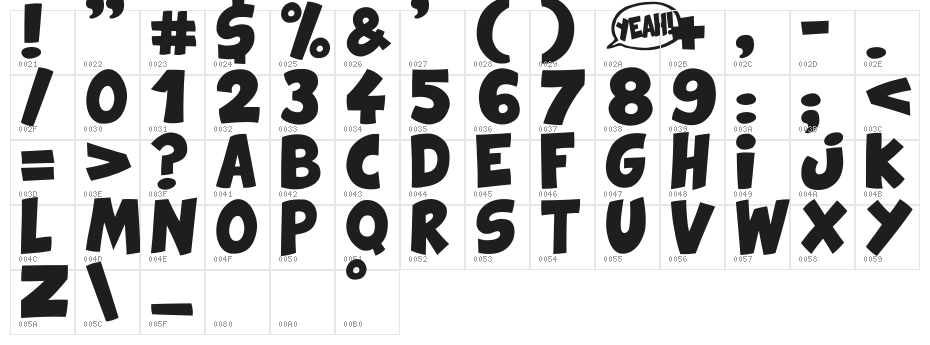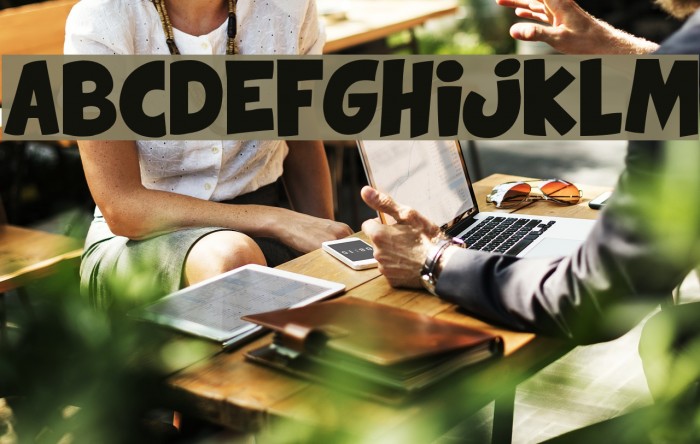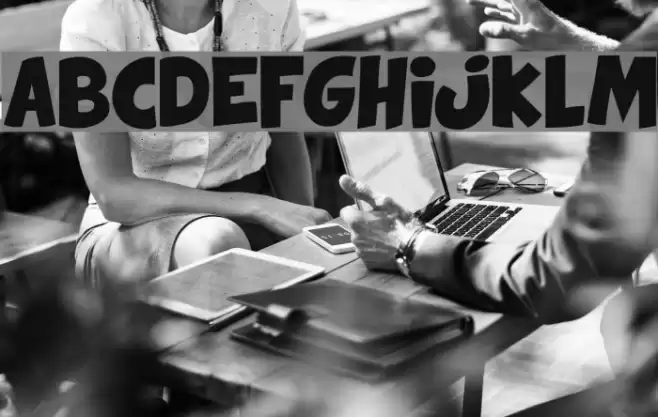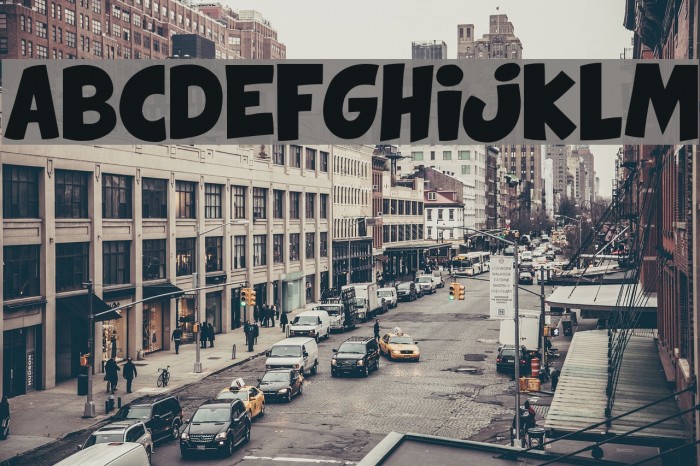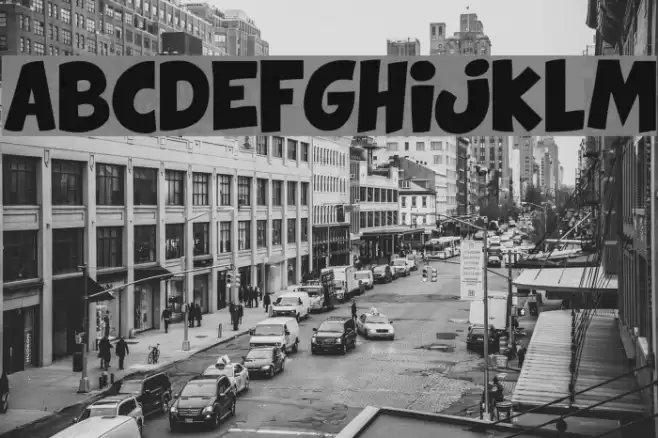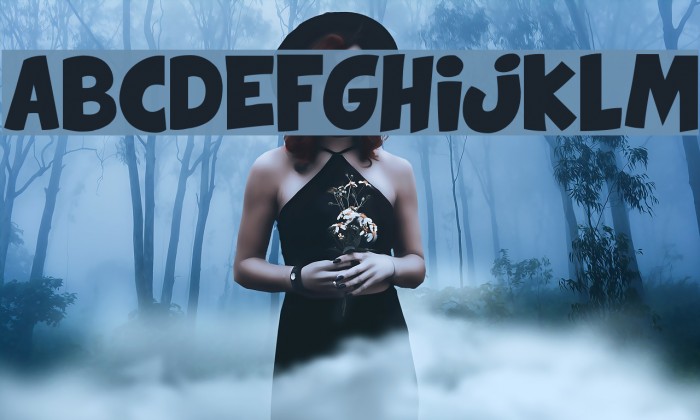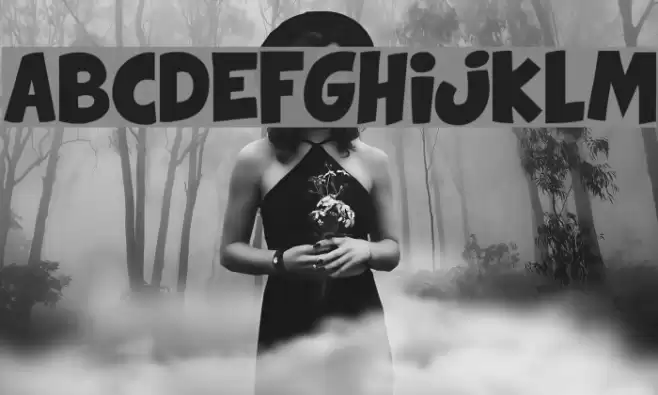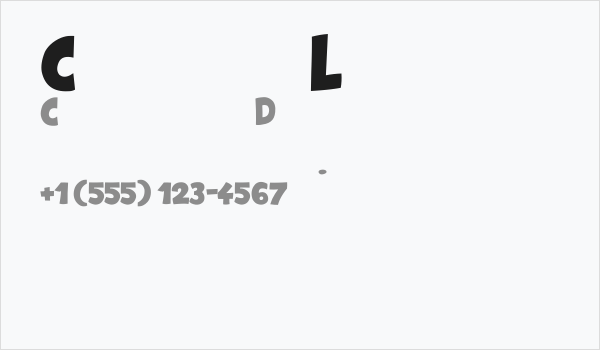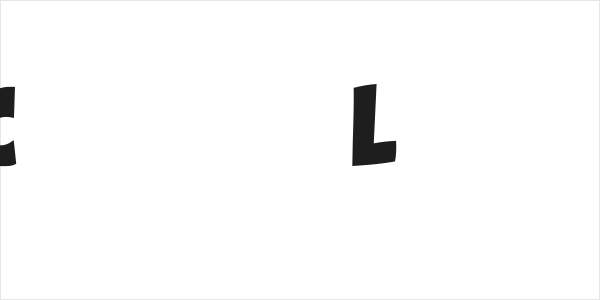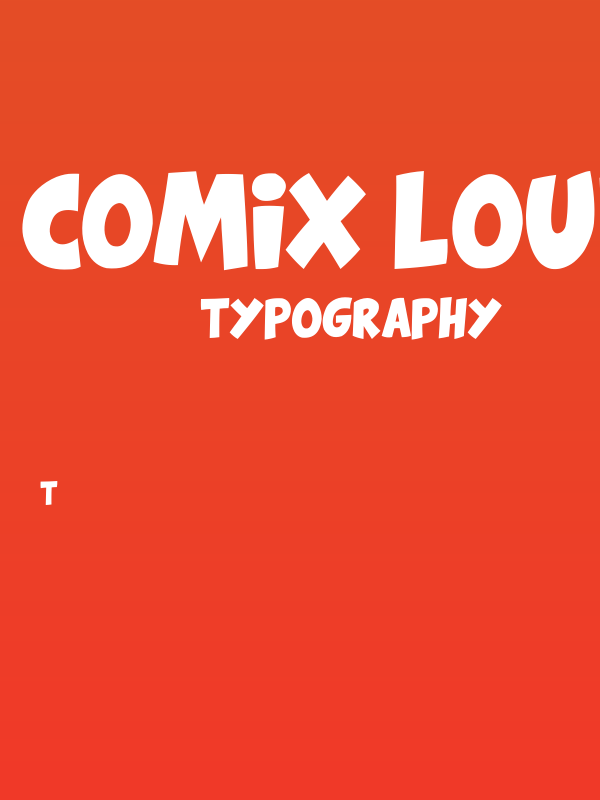
Comix Loud Font
Comix Loud Description
This font exudes a playful and energetic vibe, characterized by its bold, thick strokes and exaggerated curves. The letters are slightly irregular, giving it a hand-drawn, comic book feel. The uppercase and lowercase letters maintain a consistent style, with rounded edges and a sense of movement. The numbers and special characters follow the same lively aesthetic, making them perfect for attention-grabbing designs. The font's overall appearance is both fun and dynamic, ideal for projects that require a touch of whimsy and excitement.
| Overall Style | Playful, Comic |
| Proposed Projects | Ideal for comic books, children's books, playful branding, posters, and any design needing a fun, energetic touch. |